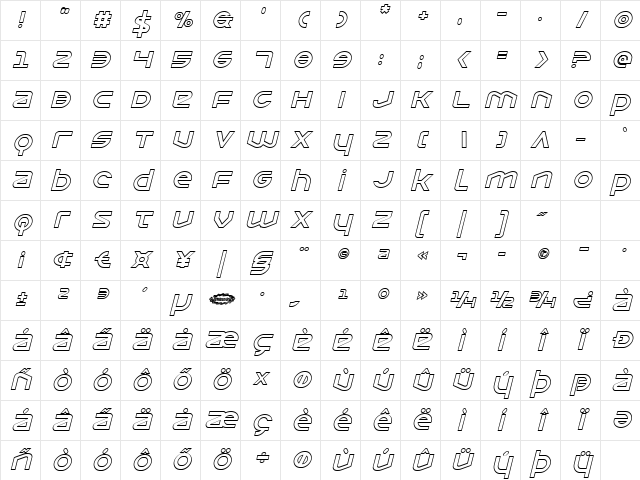
Opilio Outline is built around its visual character rather than neutral utility - its distinctive forms are designed to make an impression at display sizes. The slanted form adds forward momentum and visual energy.
Font Pairing: Pair with a clean neutral sans-serif for body copy to let Opilio Outline's character lead without overwhelming the composition.
Pro Tip: Use Opilio Outline exclusively at display sizes - it was designed to be seen, not read at length. Let a neutral companion handle body copy.